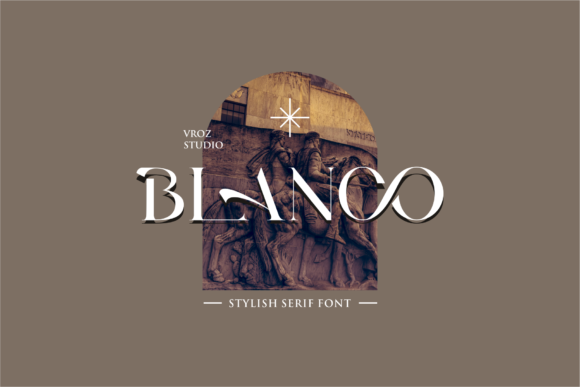
I still remember the frustration of working on a high-stakes design project, only to hit a roadblock when it came to choosing the right font. My client wanted something luxurious, yet approachable; elegant, yet not too stuffy. I scoured font libraries, but nothing seemed quite right. That was until I stumbled upon the **Blanco Font**.
Masterfully designed to become a true favorite, Blanco has the potential to bring each of your creative ideas to the highest level! In this article, I’ll share my experience with this stunning serif font, its features, and how to make the most of it in your designs.
An Honest Review of Blanco Font
- ✨ Luxurious and elegant feel, perfect for high-end designs
- ✅ Exceptional legibility, even at smaller font sizes
- 💫 Beautifully crafted serifs, adding a touch of sophistication
- 🎨 Versatile and adaptable, suitable for various design projects
While Blanco is an outstanding font, there are a few minor considerations to keep in mind:
- 🤔 Limited availability of certain OpenType features in some software
- ⚠️ May not be the best choice for very long blocks of body text
The Backstory of Blanco Font
Blanco was designed with the goal of creating a luxurious, yet approachable serif font. The designer aimed to craft a font that would be both elegant and versatile, suitable for a wide range of creative projects. By combining classic serif elements with modern touches, Blanco was born.
Q: What makes Blanco Font unique?
A: Blanco’s unique blend of luxurious elegance and approachability sets it apart from other serif fonts.
Q: Is Blanco suitable for body text?
A: While Blanco is legible, it may not be the best choice for very long blocks of body text. Consider using it for headings or shorter paragraphs.